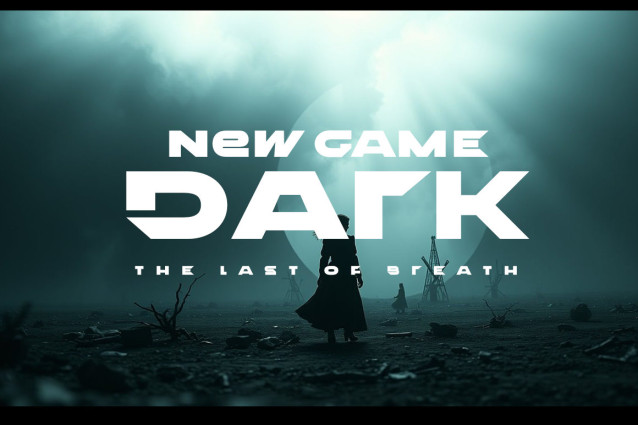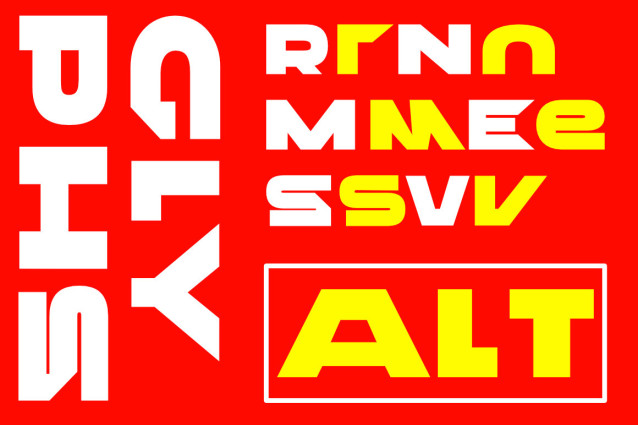
Trickr Logo Font
Trickr Logo Font a strong, confident and powerful typeface designed to suit sports logos, club branding, apparel applications, labels and more.